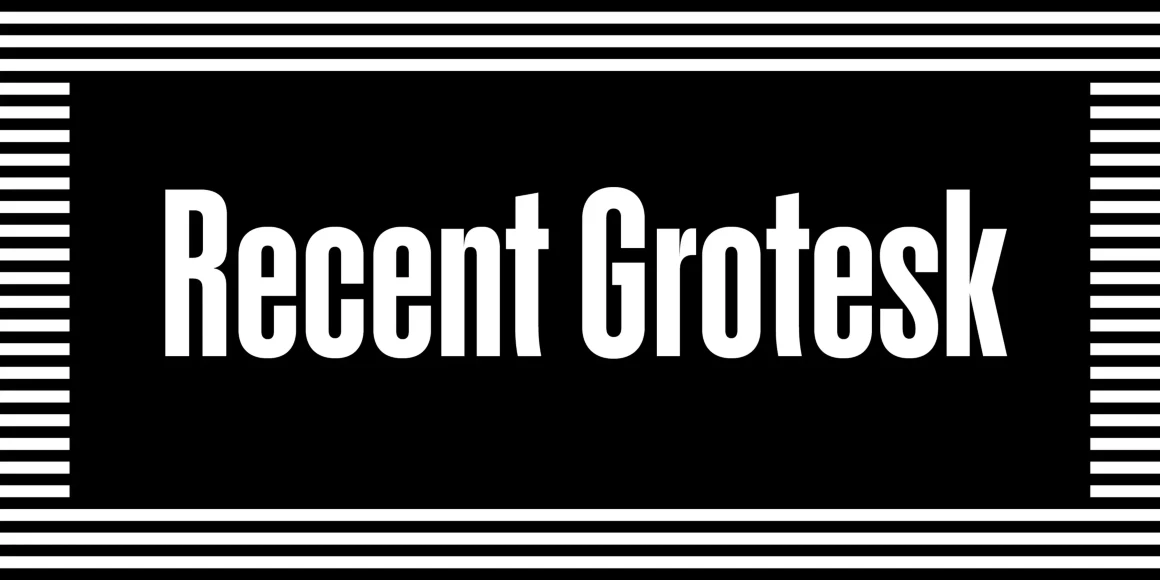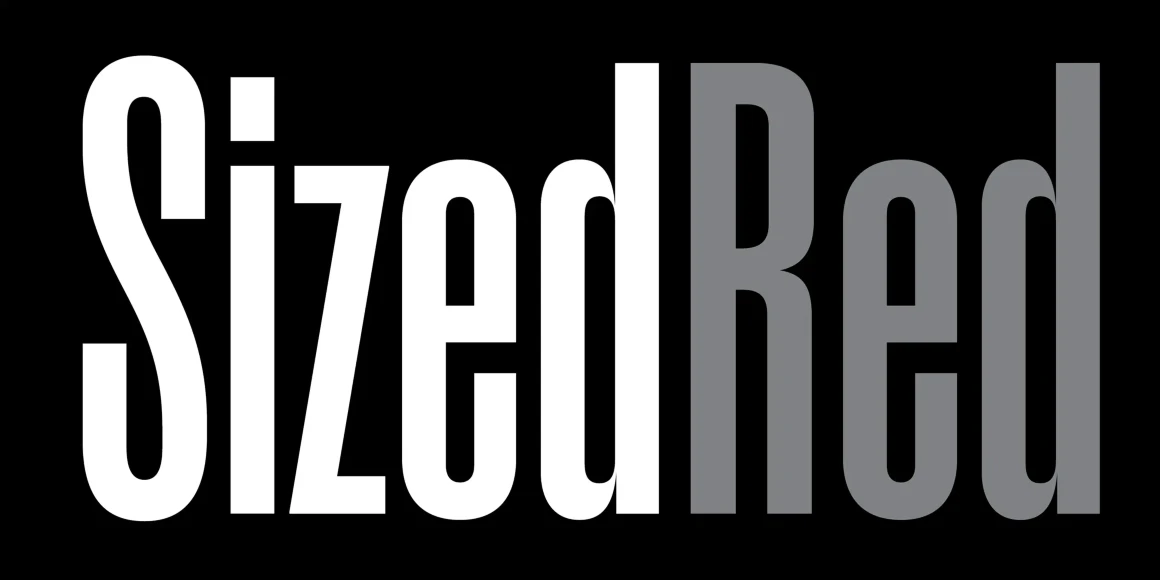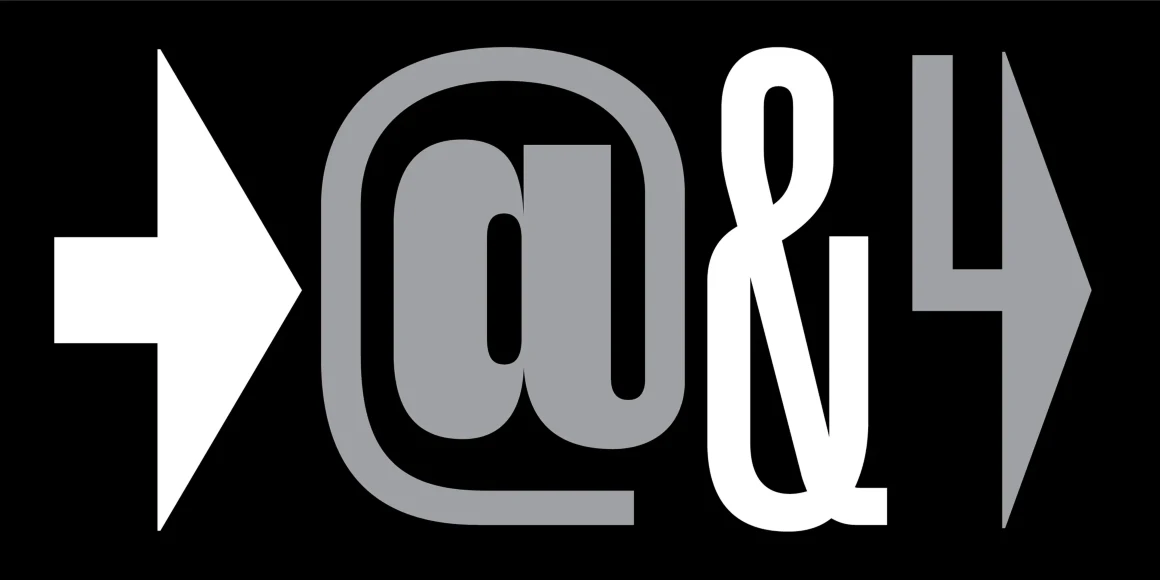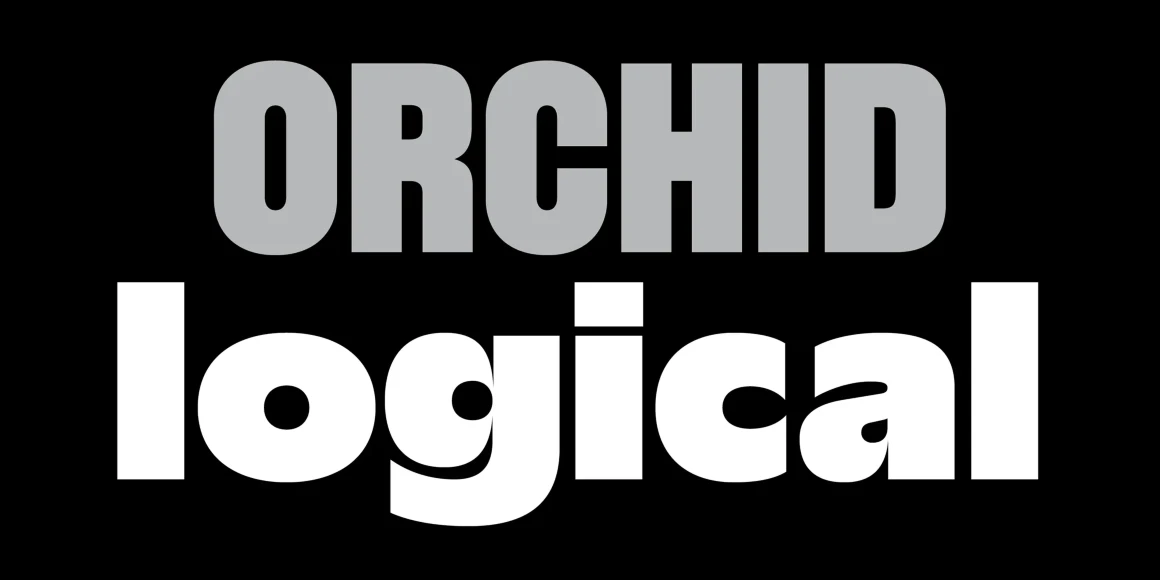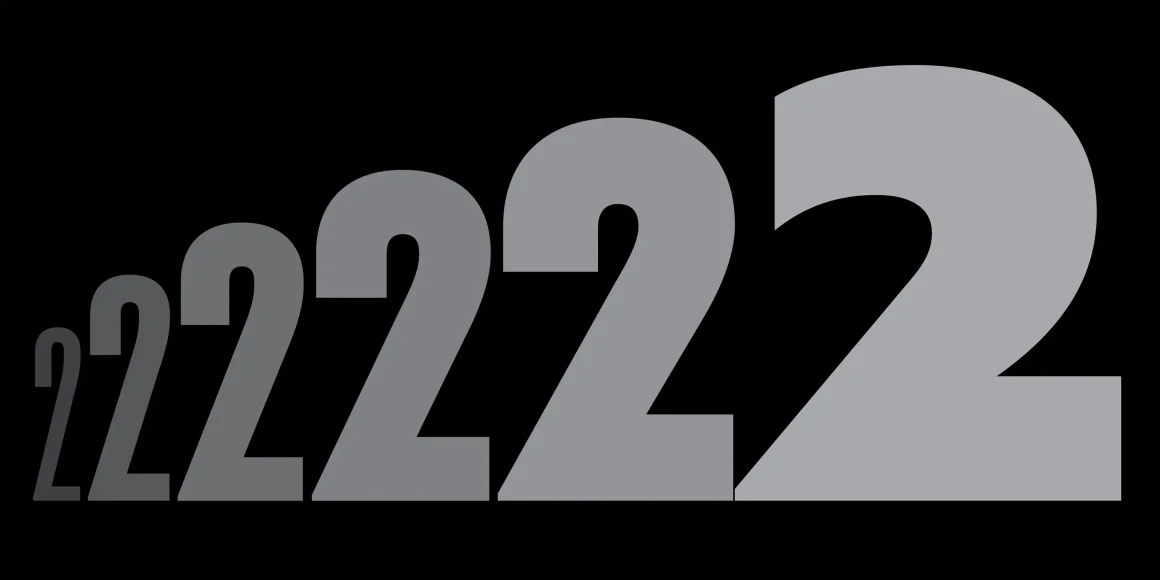
Recent Grotesk
Recent Grotesk is a contemporary family of typefaces with influences that start in the 19th century and travel through into present day. It’s a nod to the improvised weight and width strategies of wood type, the high x-heights of 20th century phototype and the puffed out Antique Olive Nord of Roger Excoffon. The family is a just-the-basics set of six fonts that range from compressed and condensed through to an overstuffed wide cut. For best results, we recommend sizes large and larger.
Designed by Eric Olson